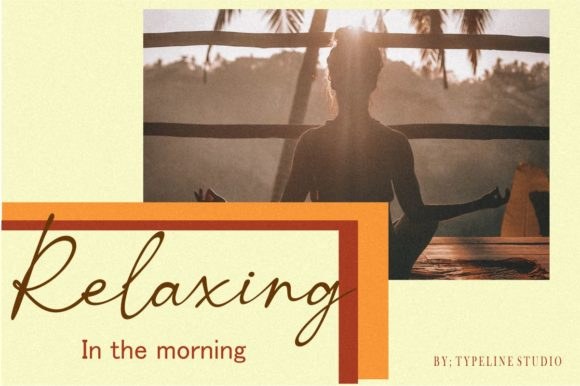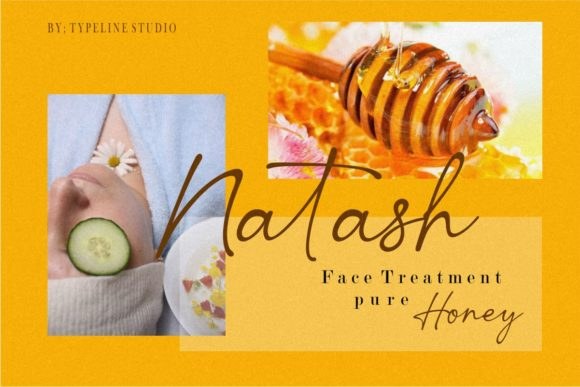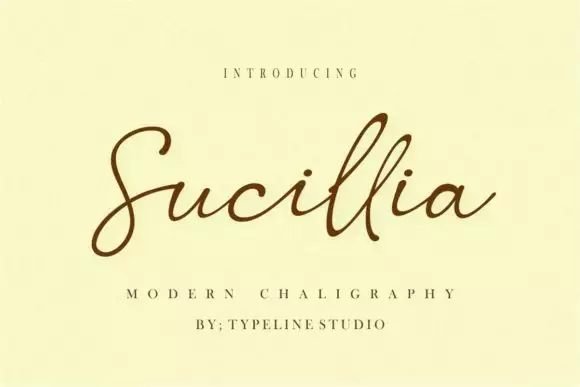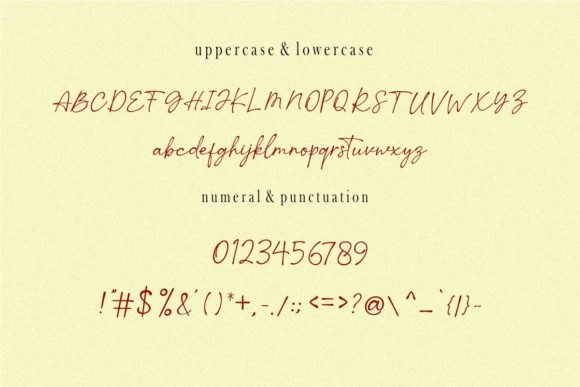
Sucillia Font
Sucillia is a cursive and radiant script font. Refined and delicate, this font will make each of your designs look gorgeous. Sucillia is PUA encoded which means you can…
Sucillia is a cursive and radiant script font. Refined and delicate, this font will make each of your designs look gorgeous. Sucillia is PUA encoded which means you can access all of the glyphs and swashes with ease!
Where Sucillia Font works best
Sucillia Font brings a personal, handwritten warmth to invitations, menus and place cards.
Craft brands — coffee, cosmetics, bakery — use scripts like Sucillia Font for signature-style logos and labels.
Pair Sucillia Font with a plain sans for quotes, stories and Pinterest pins that feel handmade.
What is Sucillia Font good for?
Sucillia Font is a Script And Handwritten typeface tagged Elegant, Handwritten, Refined, Script. It works well for headlines, logos, posters, social media graphics and branding projects that need a distinctive script and handwritten look.